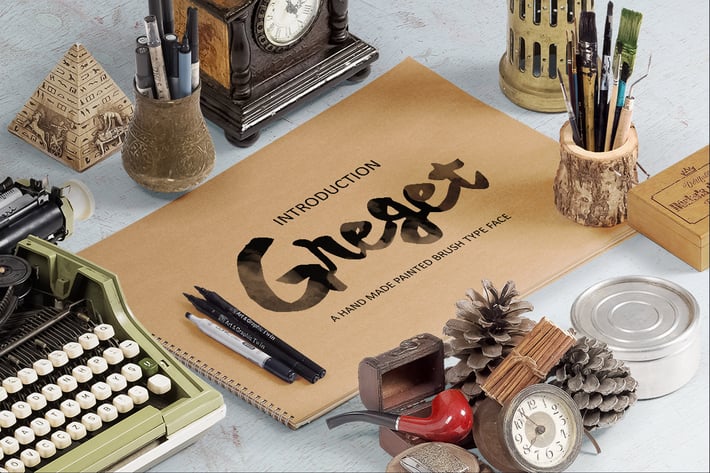
Greget Typeface
Greget Typeface is a hand made painted typeface with a customible style it's perfect for creating a wedding invitation (Initial), a headline, logotype, and t-shirt/ apparel design. The characteristic of Greget is rough, spate, and brush inspired by watercolor and ink droped that have a unique characteristic.